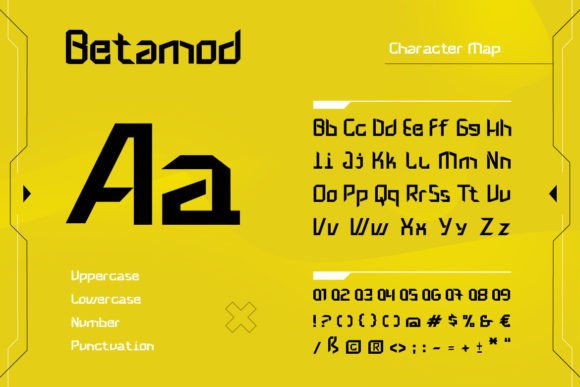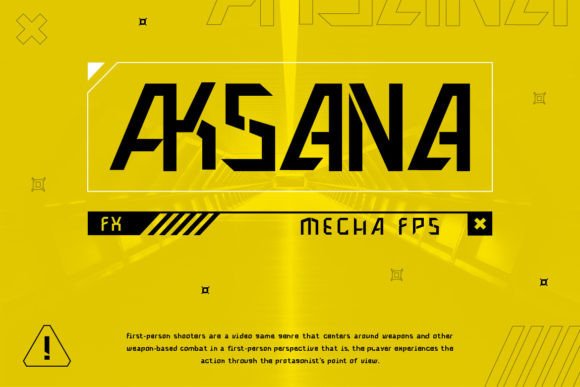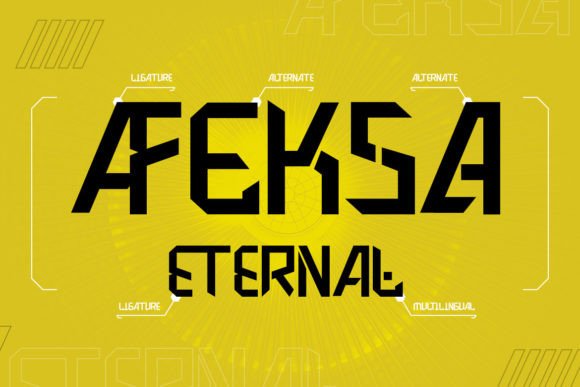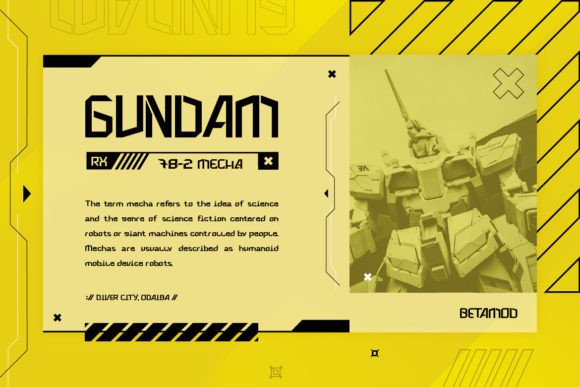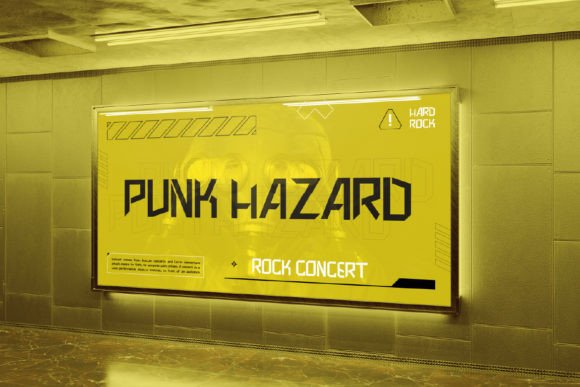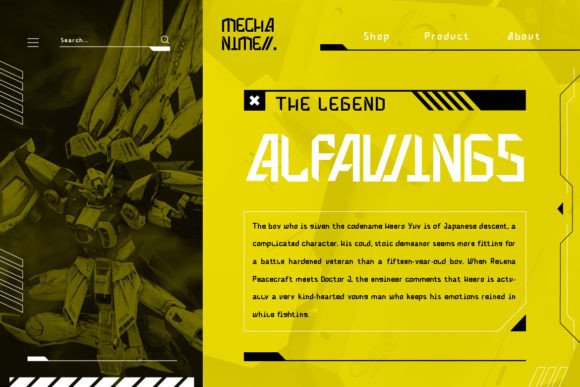
Unlocking the Future with Fonts: Introducing Betamod Font
Do you ever find yourself lost in the world of sci-fi, imagining the futuristic cities and advanced technologies that will shape our tomorrow? For designers, this creative moment is a spark that ignites the passion to bring these visions to life. And that’s exactly what inspired the creation of Betamod Font, a modern sans-serif typeface designed to capture the essence of technology and innovation.
Betamod Font is a versatile tool for designers, suitable for a wide range of applications, from logo design and social media graphics to movie titles and book covers. Its clean and modern design makes it an ideal choice for secondary text fonts, working seamlessly with both sans and serif fonts to create a visually stunning effect.
Betamod Font Key Features
- Font Family: Betamod is a sans-serif font family with a geometric and modern design.
- Unique Characteristics: Betamod features a unique blend of geometric and rounded shapes, giving it a modern and futuristic feel. It also includes a wide range of language support and advanced typographic features.
Betamod Font Review
I recently had the chance to work with the Betamod font, and I must say it’s been an interesting experience. Here’s my honest take on what works well and what doesn’t.
- Unique Design: The Betamod font has a distinctive, futuristic look that’s perfect for sci-fi or tech-related projects.
- Legibility: Despite its quirky design, the font is surprisingly legible, making it easy to read even at smaller sizes.
- Customization Options: The font family includes several weights and styles, giving designers plenty of flexibility when it comes to typography.
- Limited Character Set: The font is missing some common characters, such as accented letters or symbols, which can be a problem for international projects.
- Not Ideal for Body Text: While the font is great for headlines and titles, it’s not the best choice for body text due to its irregular letterforms and lack of x-height.
- Not Widespread Support: As a relatively new font, Betamod may not be supported by all operating systems or devices, which can cause compatibility issues.
The Betamod font is a bold, eye-catching choice that’s perfect for projects that need a futuristic or high-tech feel. While it has some limitations, its unique design and customization options make it a great addition to any designer’s toolkit.
The Betamod Font is commonly used in:
- Graphic design projects.